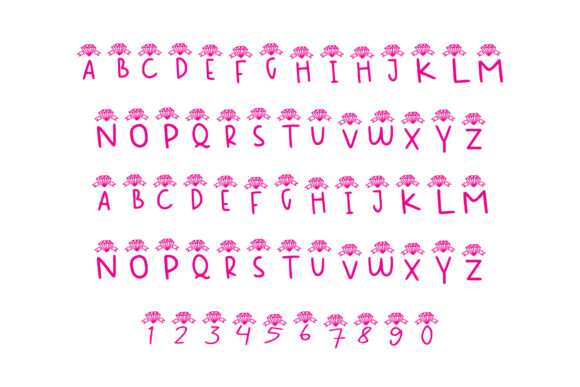
Introduction to Simple Wedding Decorative Font
Diamond is a charming decorative font.
Fall in love with its authentic feel and use it to create gorgeous invitations, beautiful stationary art, eye-catching social media posts, and cute greeting cards .
Key Features of Simple Wedding Decorative Font
Why Choose Simple Wedding Decorative Font?
Simple Wedding Decorative Font offers exceptional quality and versatility, making it a valuable addition to your design toolkit. Whether you’re creating for personal projects or commercial use, Simple Wedding Decorative Font delivers professional results.